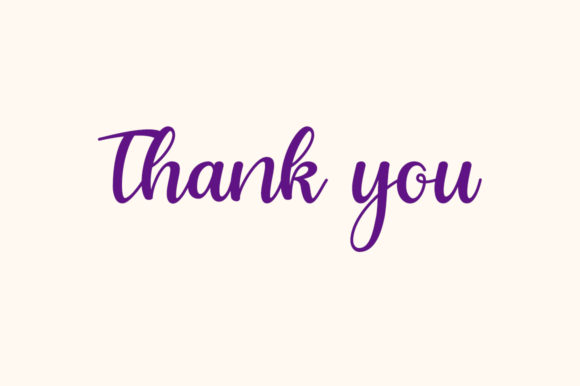
Introduction to Letizia Font Font
Fonts play a crucial role in design, and the Letizia Font font is a typeface that brings both character and versatility to any project. Whether you’re working on a branding project, a website, or a print design, the Letizia Font font offers a unique style that can elevate your work.
Letizia is a beautiful script font, featuring a sweet flow and modern, calligraphy swashes.
It looks lovely on invitations, thank you cards, quotes, greeting cards, logos, business cards and every other design which needs a romantic touch This font is PUA encoded which means you can access the available glyphs and swashes with ease.
Key Features of Letizia Font Font
Why Choose Letizia Font Font?
The Letizia Font font is more than just a typeface – it’s a design tool that helps you communicate your message with style and clarity. Its unique character set and versatile design make it suitable for a wide range of applications, from elegant invitations to bold headlines.
With its carefully crafted letterforms and balanced proportions, the Letizia Font font ensures readability and visual appeal across all mediums.
What makes Letizia Font font special?
The Letizia Font font stands out with its unique design, exceptional readability, and versatility across various design applications.